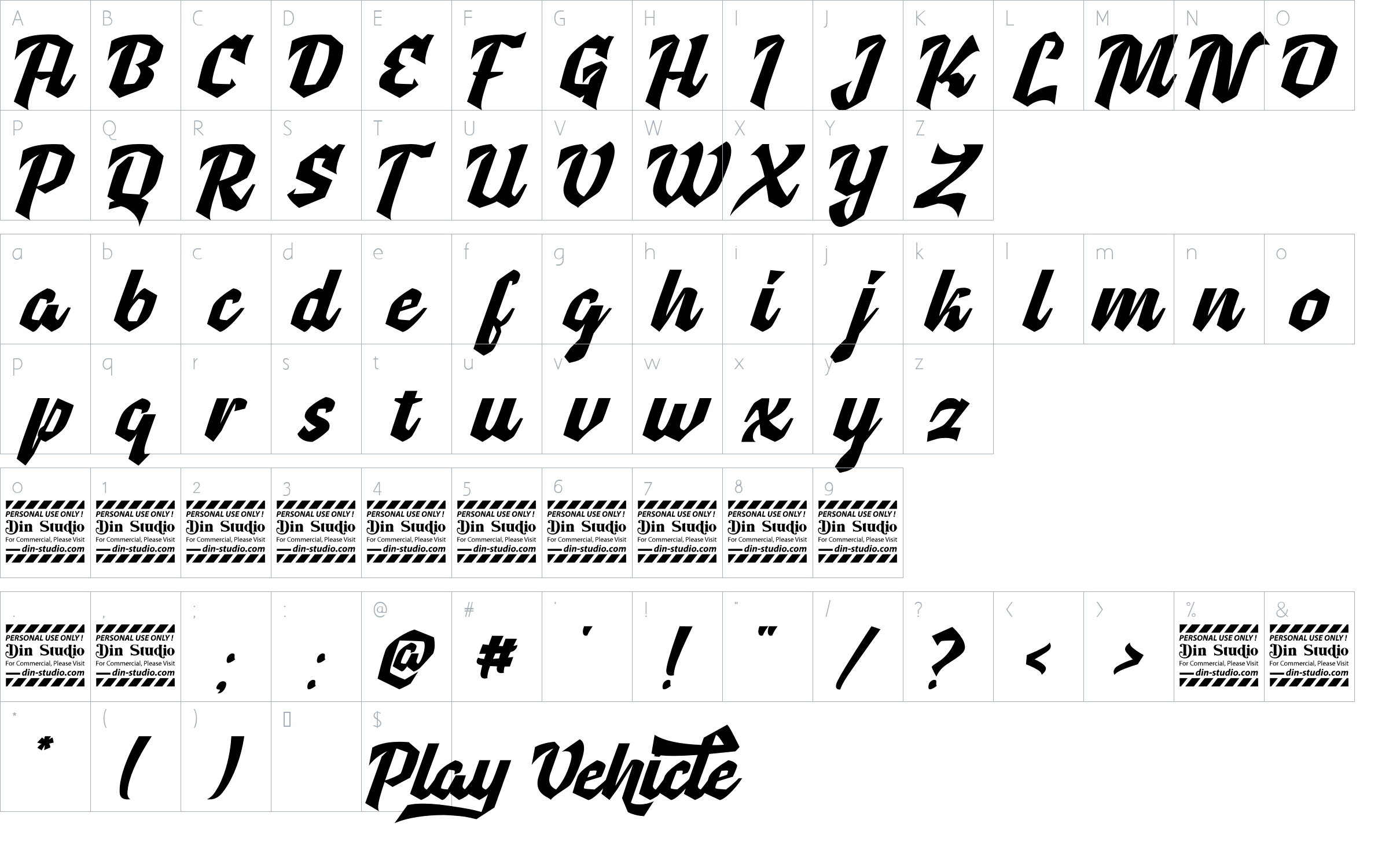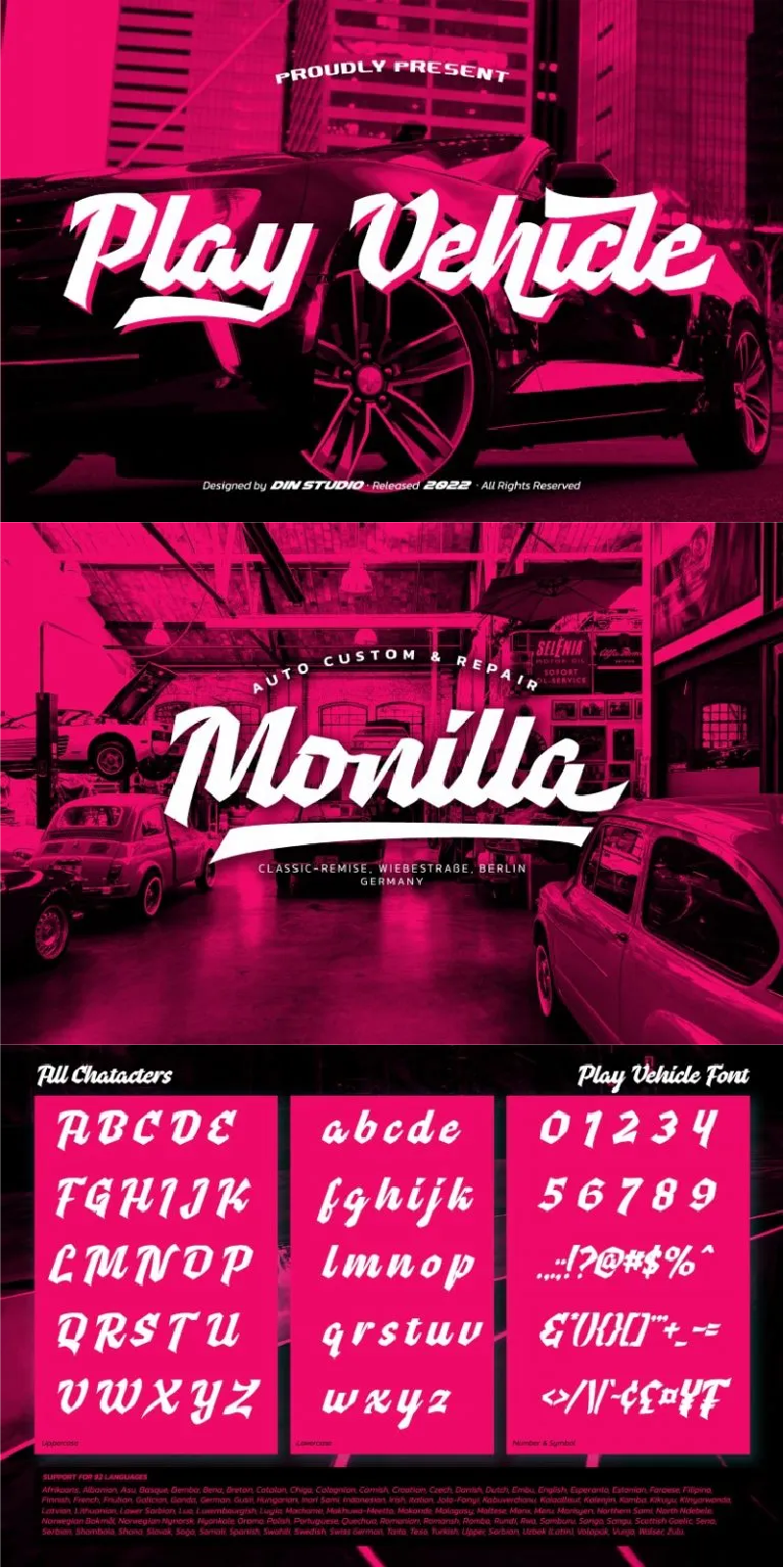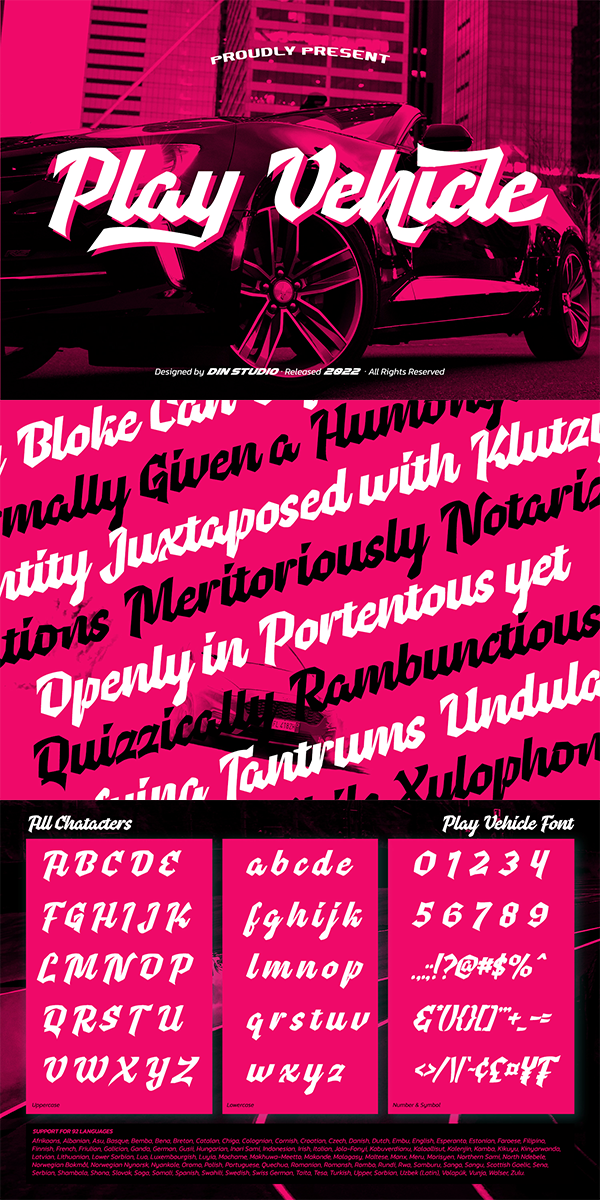
Play Vehicle Font
About Play Vehicle
Play Vehicle is a racing-themed display font to provide you a stylish, brave, modern design which is visually eye-catching because of its variations of thick and thin letters. Through its developed legibility, it is possible to use the font in titles or text contents. The font features you can enjoy are as follows.
Play Vehicle fits best for various designs, such as posters, banners, logos, book covers, headings, printed products, merchandise, social media, and more. Find out more ways to use this font by taking a look at the font preview.